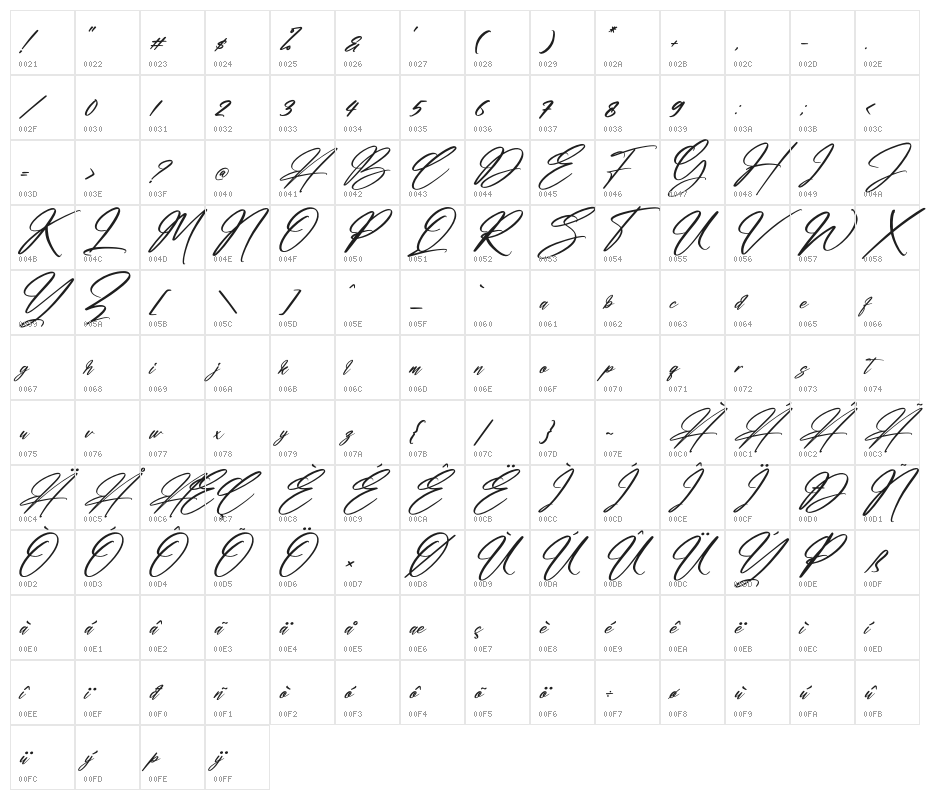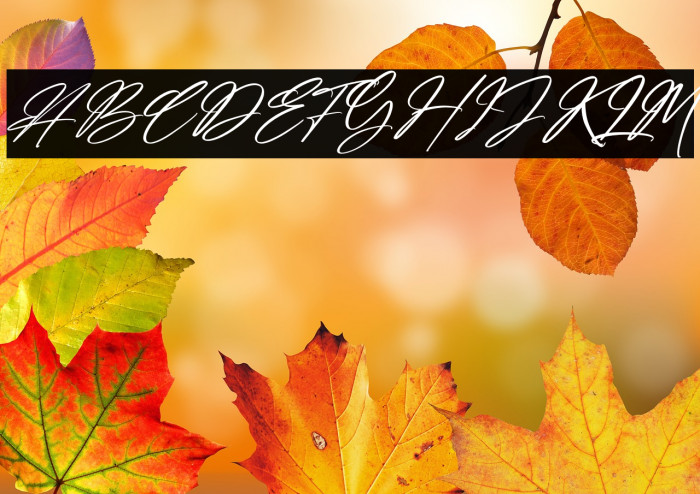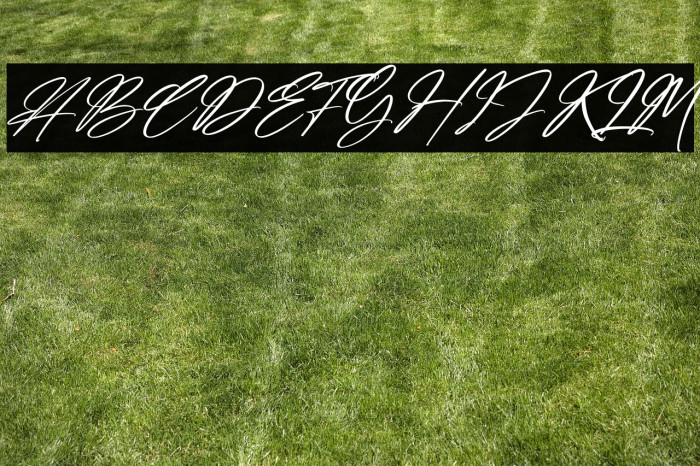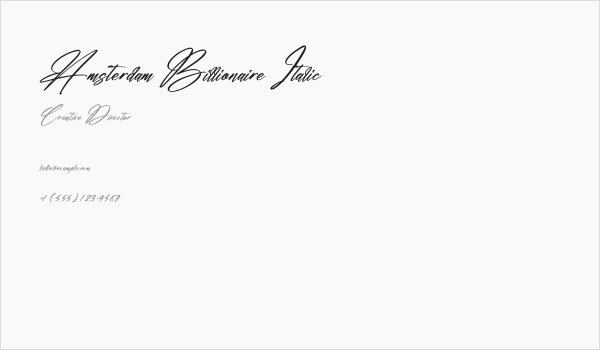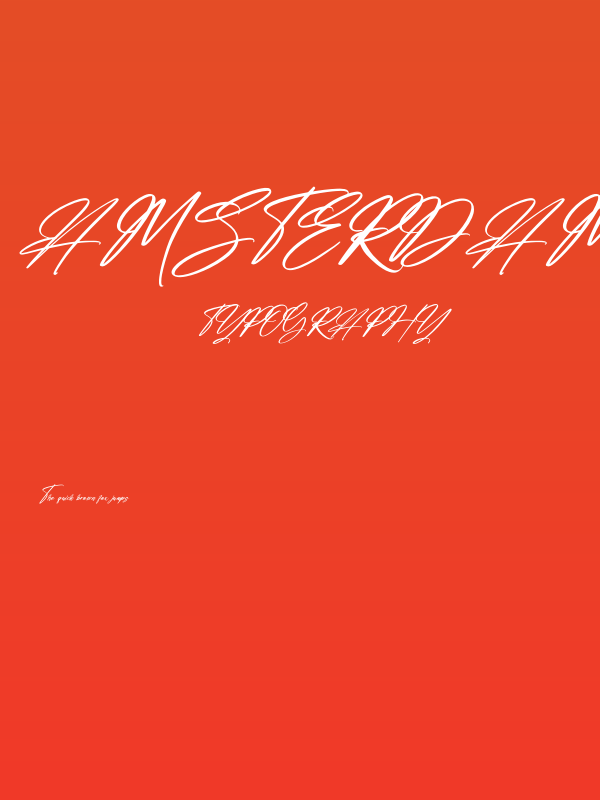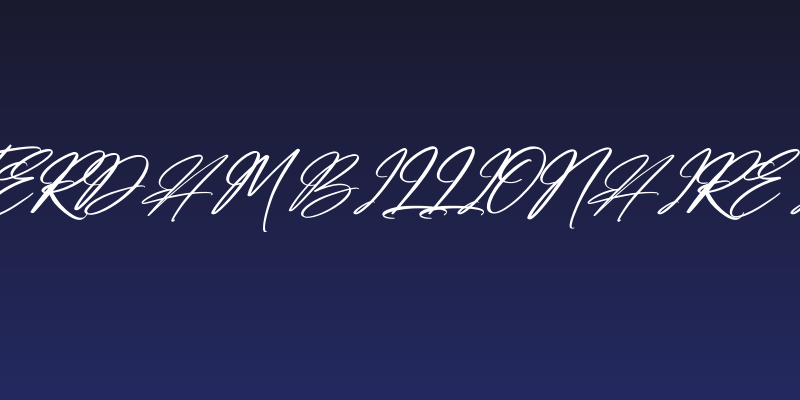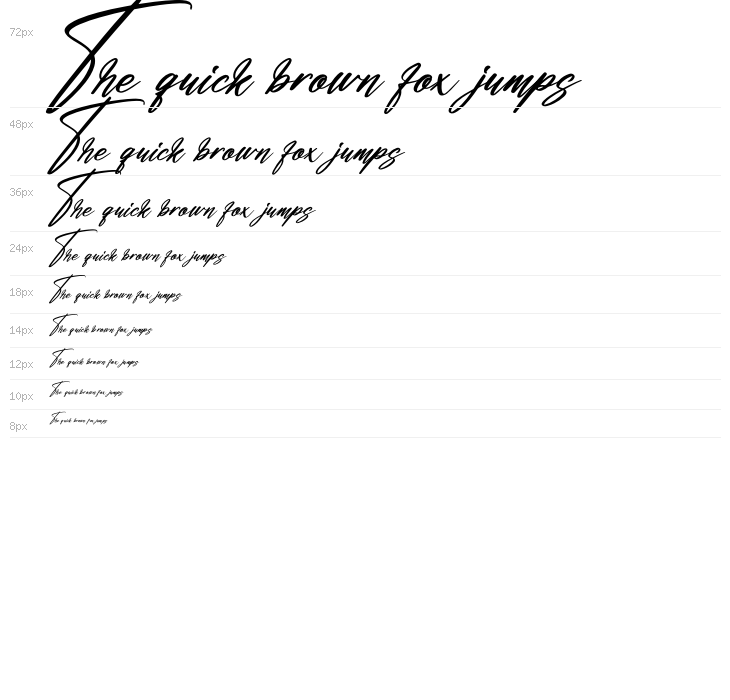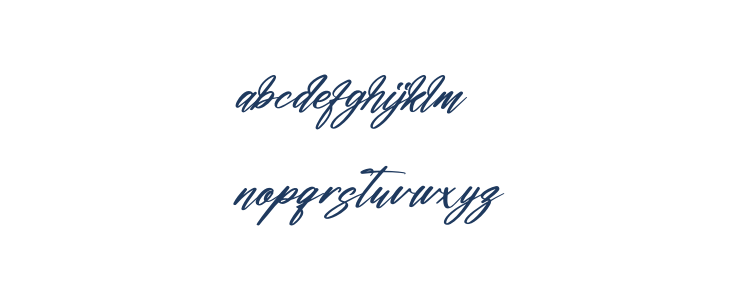
Amsterdam Billionaire Italic Font
Amsterdam Billionaire Italic Description
This font exudes elegance and sophistication with its flowing, cursive style. The characters are intricately designed, featuring smooth, sweeping curves and a consistent slant that gives it a dynamic and fluid appearance. The uppercase letters are particularly ornate, with elaborate loops and flourishes that add a touch of luxury. The lowercase letters maintain a cohesive style, complementing the uppercase with their own graceful curves. The numerals and special characters are equally stylish, ensuring a uniform look across all text. This font is perfect for projects that require a touch of class and refinement.